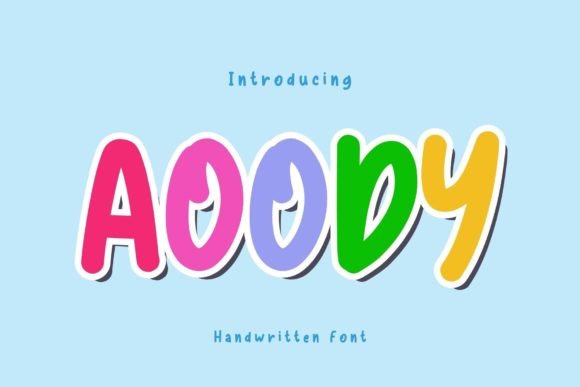
Aoody Font: The Cute Handwritten Font for Your Creative Projects
Are you looking for a font that can add a touch of playfulness and authenticity to your designs? Look no further than Aoody Font! This adorable handwritten font is perfect for a wide range of creative projects, from blog posts and logos to invitations and decorations. In this article, we’ll explore the features and benefits of Aoody Font, and show you how to make the most of this versatile font.
What is Aoody Font?
Aoody Font is a cute handwritten font that embodies playfulness and authenticity. Its unique and charming design makes it perfect for adding a personal touch to your designs. Whether you’re a designer, crafter, or DIY enthusiast, Aoody Font is a great choice for any project that requires a friendly and approachable feel.
Features of Aoody Font
Aoody Font has several features that make it a great choice for your creative projects. Some of its key features include:
- Playful and authentic design: Aoody Font has a unique and charming design that adds a touch of playfulness and authenticity to your designs.
- Versatile: This font is perfect for a wide range of creative projects, from blog posts and logos to invitations and decorations.
- Easy to read: Aoody Font is clear and easy to read, making it perfect for body text and headings.
- Customizable: You can use Aoody Font in a variety of contexts, from digital designs to print materials.
Uses of Aoody Font
Aoody Font is a versatile font that can be used in a wide range of creative projects. Here are some ideas to get you started:
- Blog posts: Add a touch of personality to your blog posts with Aoody Font. It’s perfect for headings, subheadings, and body text.
- Logos and branding: Use Aoody Font to create a unique and memorable logo for your business or brand.
- Invitations and greeting cards: Aoody Font is perfect for creating invitations, greeting cards, and other paper crafts.
- Decorations: Use Aoody Font to add a personal touch to your decorations, from banners and signs to wall art and DIY projects.
- Photo albums: Aoody Font is a great choice for photo albums, scrapbooking, and other memory-keeping projects.
Tips for Using Aoody Font
Here are some tips for getting the most out of Aoody Font:
- Use it in combination with other fonts: Aoody Font pairs well with other fonts, so don’t be afraid to experiment with different combinations.
- Experiment with different sizes and colors: Aoody Font looks great in a variety of sizes and colors, so try out different options to see what works best for your project.
- Use it to add a personal touch: Aoody Font is perfect for adding a personal touch to your designs. Use it to add a handwritten feel to your projects.
Aoody Font is a versatile and charming font that’s perfect for a wide range of creative projects. Its playful and authentic design makes it a great choice for designers, crafters, and DIY enthusiasts. With its ease of use and customizable features, Aoody Font is a great addition to any design toolkit. So why not give it a try and see what amazing projects you can create?
Whether you’re a seasoned designer or just starting out, Aoody Font is a great choice for any project that requires a friendly and approachable feel. So go ahead, add Aoody Font to your designs, and enjoy the results!